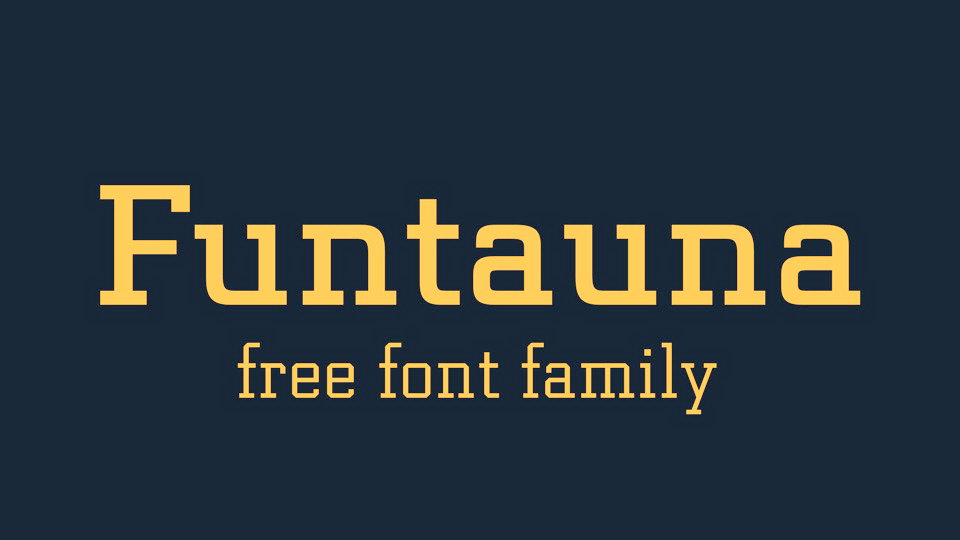
Download Funtauna typeface, a rectangular slab serif font family. Funtauna comes with 11 fonts, including Light, Regular, Bold, some special faces called “Otg” and their Oblique versions. There is also a Mono included.
Designer: Linus Romer